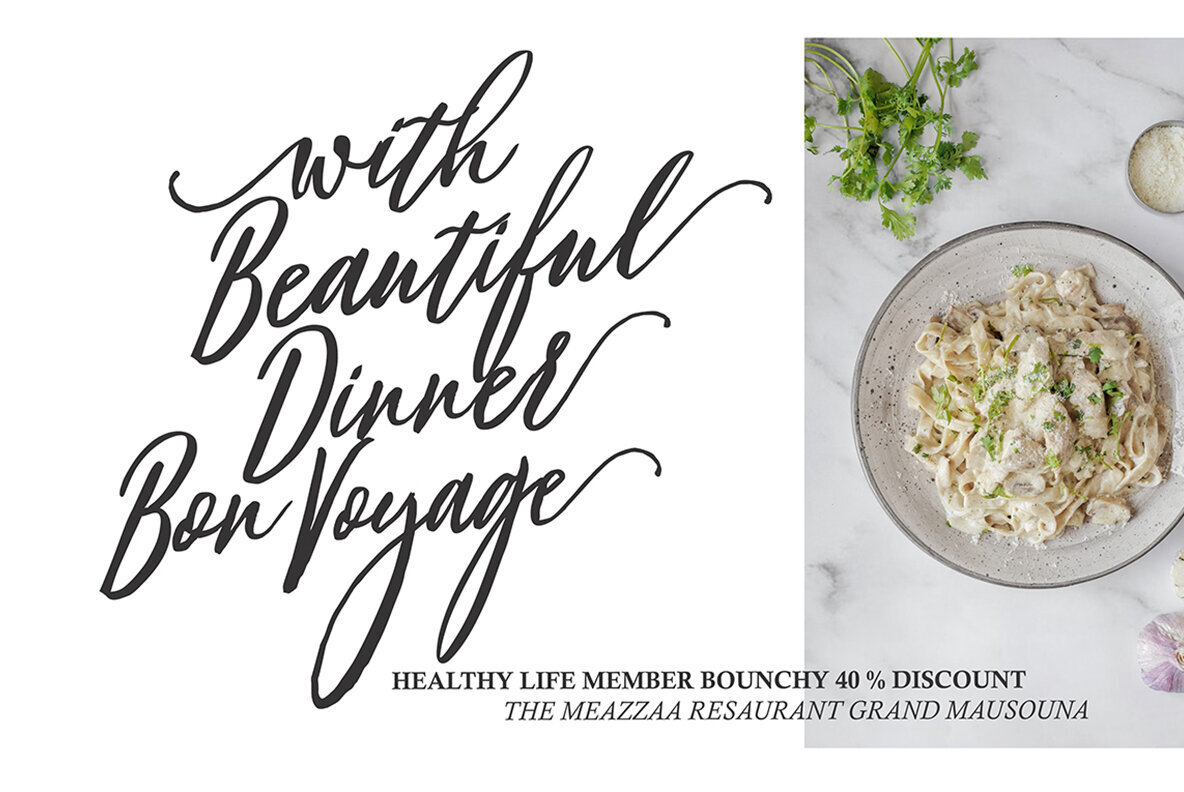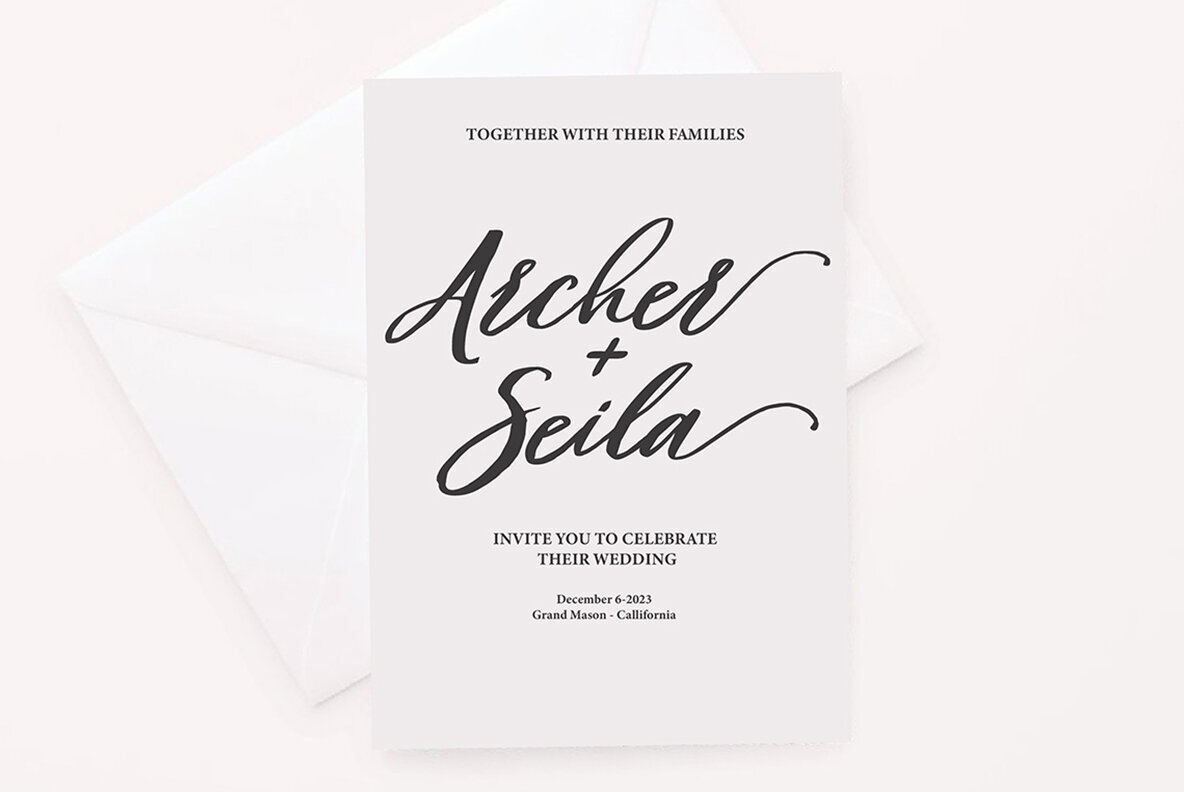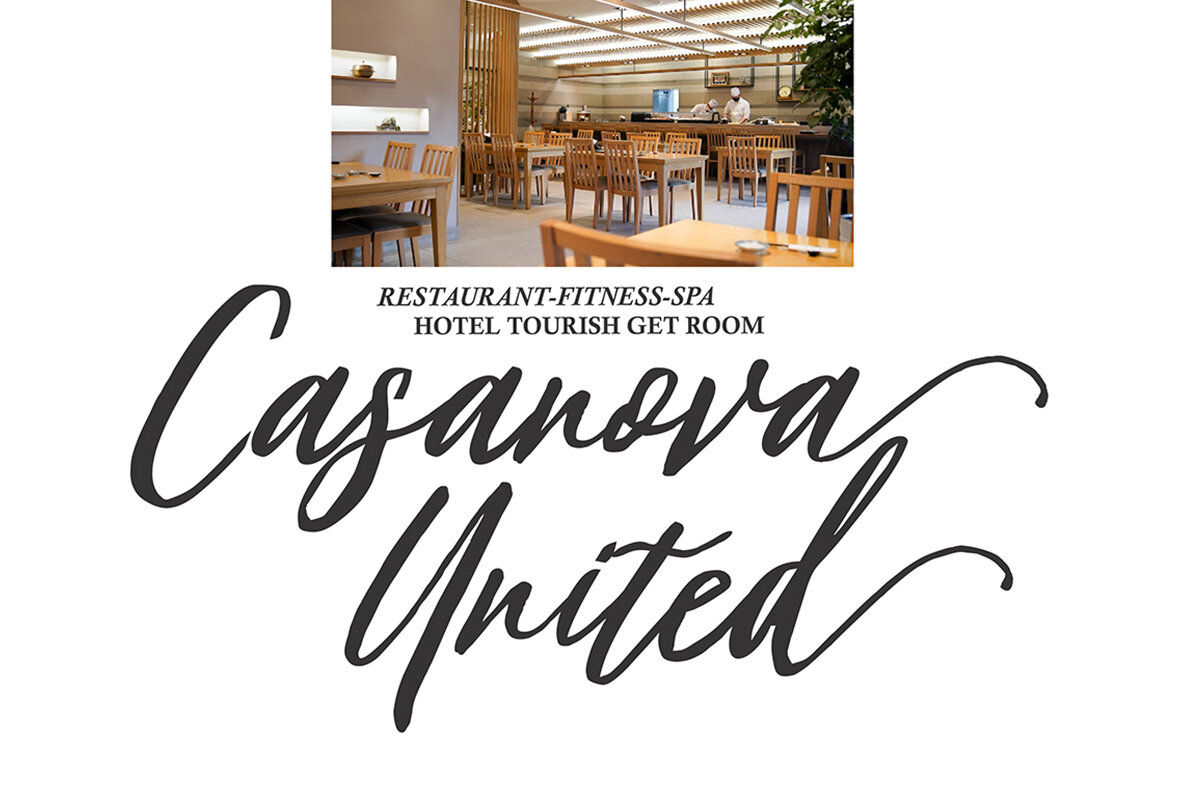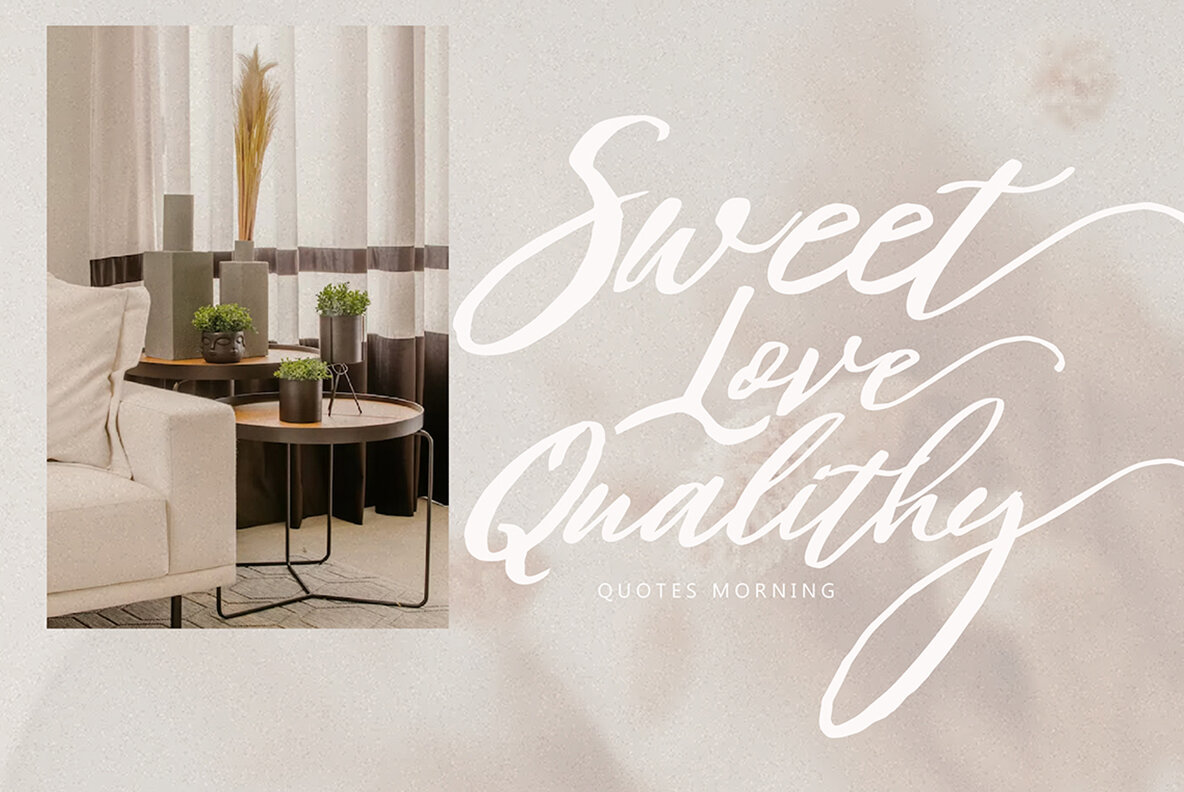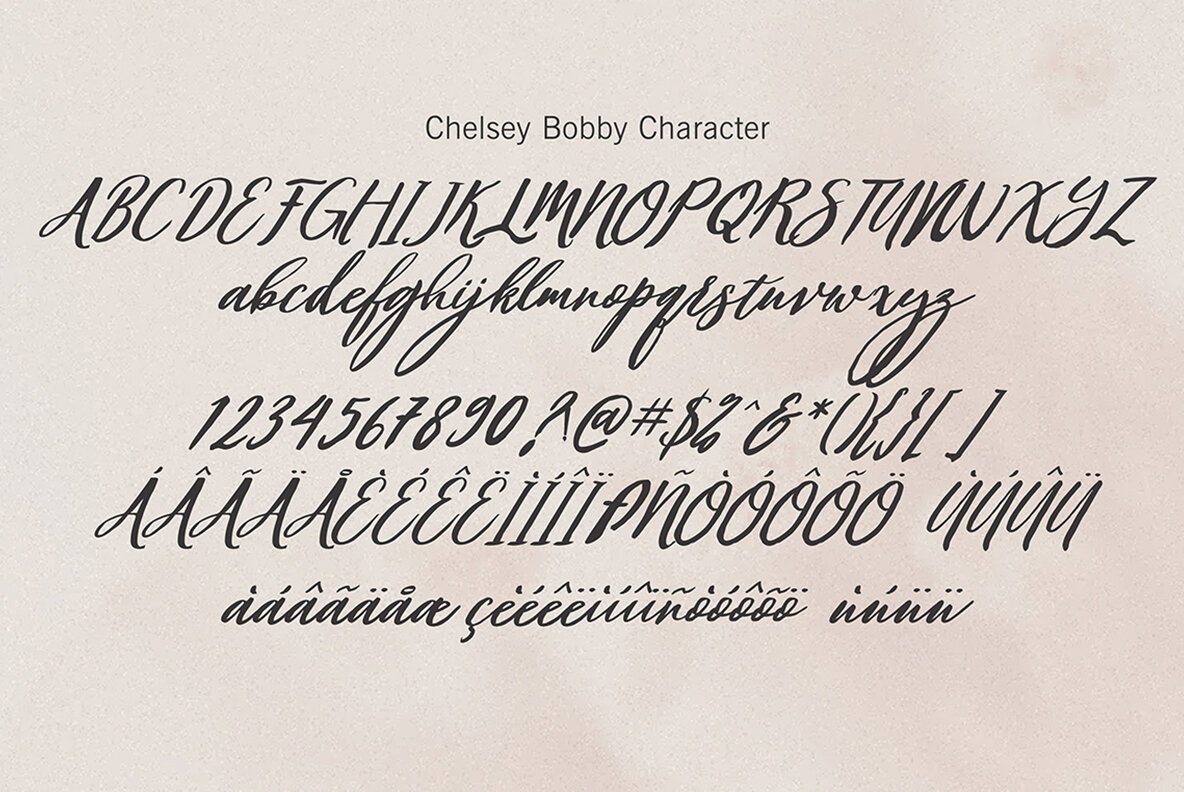
Chelsey Bobby Font
Chelsey Bobby Regular
Chelsey Bobby is an original handwritten font featuring an updated hand calligraphy style with special glyphs, blending fantasy and handwritten ink. Ideal for wedding designs, branding materials, blog titles, quotes, invitations, and business cards, this font adds a touch of elegance to any project. OpenType features include alternative styles and set styles.